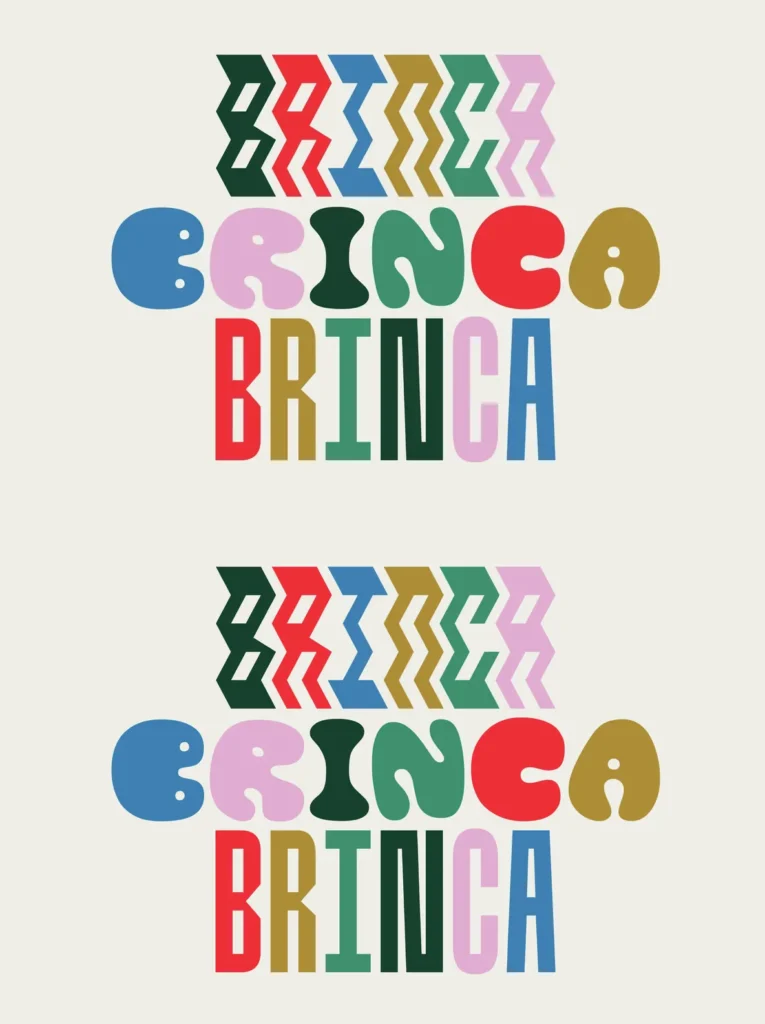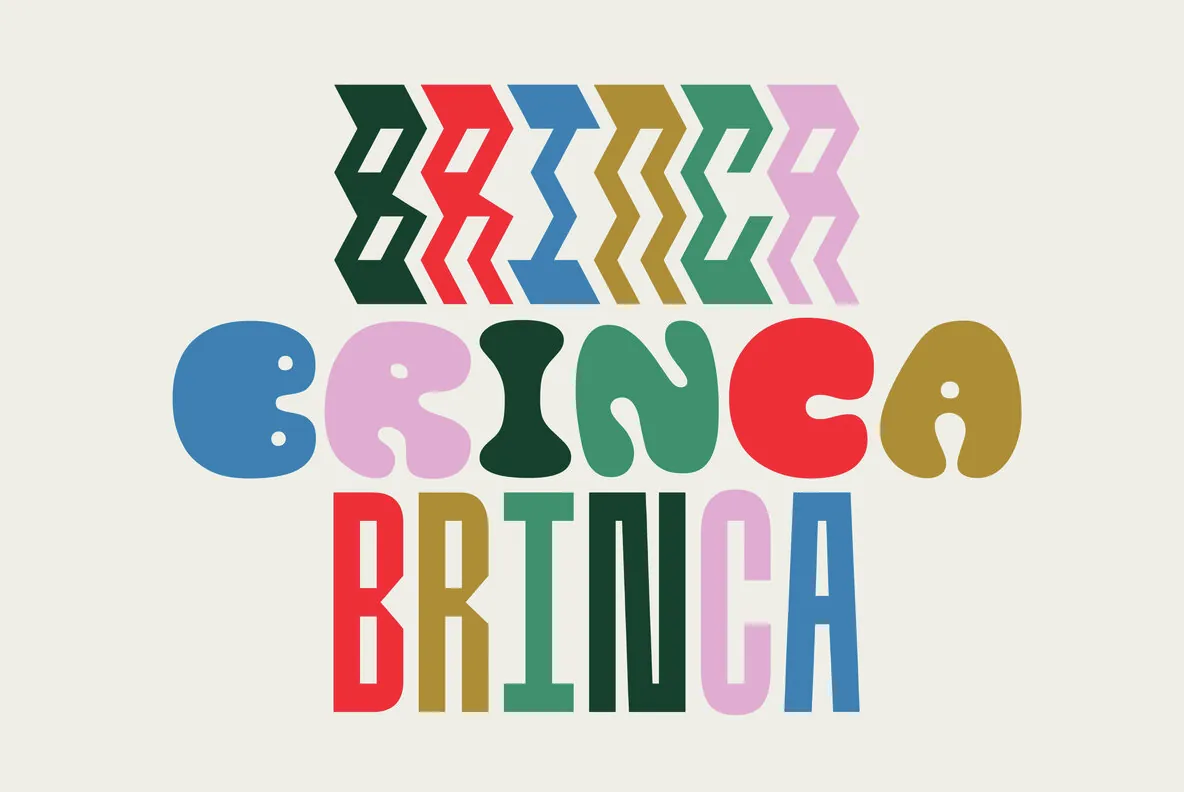
Brinca Font
Brinca is an intrepid ‘full spectrum’ typeface with emotional range and a dynamic heart. Morphing sharp tight pleats that relax into office ready neutral sans,
Brinca is an intrepid ‘full spectrum’ typeface with emotional range and a dynamic heart. Morphing sharp tight pleats that relax into office ready neutral sans, then plump into joyful bouncy letters with mesmerizing fluency, Brinca is ready to adapt to a wide variety of expressive needs.
Named after its jumping extremes of the type’s styles; from coiled spring to stuffed and bouncy, Brinca is also a leap into new possibilities for display type design.
Because of its chameleon-like range of styles, Brinca is a versatile workhorse. It’s a great choice for brand identities ready to embrace expressive range, and it’s perfect for fine-tuned packaging, events promotions, merch, product lines, and much more. WIth its very wide spectrum of options, It’s a single typeface that can be used to design a library’s worth of book covers. (We put it to the test!)
Brinca was designed by Alexander Wright and Rodrigo Fuenzalida with Michu Benaim Steiner for In-House Int’l foundry, the type foundry of brand consultancy In-House International. It was developed by Rodrigo Fuenzalida at FragType, and available through YouWorkForThem.